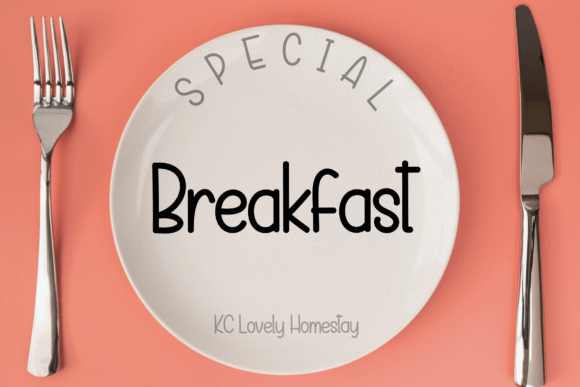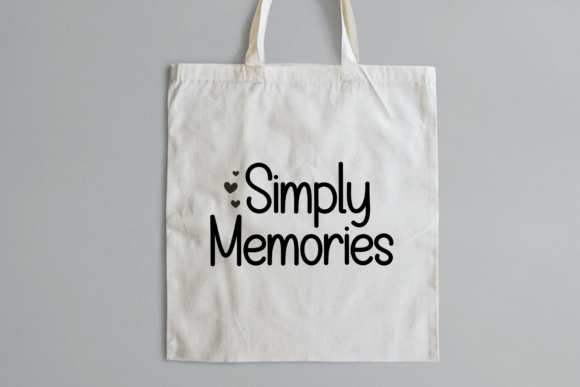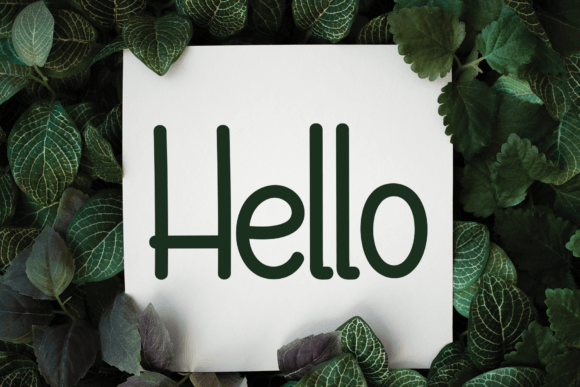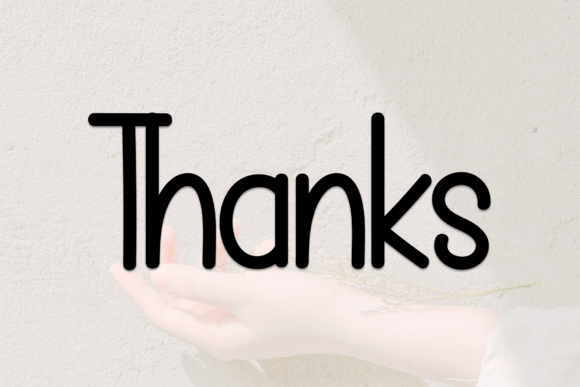
Ecanting Font: The Perfect Handwritten Style for Your Design Needs
Are you looking for a font that exudes a sense of relaxed sophistication and casual elegance? Look no further than Ecanting Font, a beautiful handwritten font that mimics the look of marker-drawn letters. With its sporty and laid-back feel, Ecanting Font is ideal for a wide range of design applications, from branding and logos to wedding supplies, greeting cards, and marketing promotions.
What is Ecanting Font?
Ecanting Font is a carefully crafted handwritten font that boasts a unique, marker-like quality. Its relaxed and sporty feel makes it perfect for designers who want to add a touch of casual elegance to their work. Whether you’re creating a logo, designing a wedding invitation, or crafting a marketing campaign, Ecanting Font is sure to impress.
Characteristics of Ecanting Font
Ecanting Font has several key characteristics that make it an excellent choice for designers and crafters. Some of its notable features include:
- Handwritten style: Ecanting Font has a beautiful, handwritten quality that gives it a personal and approachable feel.
- Marker-like texture: The font’s texture resembles that of a marker, adding a touch of whimsy and playfulness to your designs.
- Relaxed and sporty feel: Ecanting Font has a laid-back, casual vibe that’s perfect for designs that need to feel friendly and approachable.
- Luxurious and elegant: Despite its casual feel, Ecanting Font still manages to convey a sense of luxury and sophistication, making it perfect for high-end designs.
Use Cases for Ecanting Font
Ecanting Font is an incredibly versatile font that can be used in a wide range of design applications. Here are some of the most popular use cases for this beautiful font:
- Branding and logos: Ecanting Font is perfect for creating logos and branding materials that need to feel friendly, approachable, and sophisticated.
- Wedding supplies: The font’s elegant, handwritten quality makes it an excellent choice for wedding invitations, programs, and other stationery.
- Greeting cards: Ecanting Font is ideal for creating greeting cards that need to feel personal and heartfelt.
- Fashion and lookbooks: The font’s luxurious, high-end feel makes it perfect for fashion designs, lookbooks, and marketing promotions.
- Marketing promotions: Ecanting Font can be used to create eye-catching marketing materials, such as flyers, brochures, and social media graphics.
Tips for Using Ecanting Font
To get the most out of Ecanting Font, here are a few tips to keep in mind:
- Pair it with contrasting fonts: Ecanting Font looks best when paired with contrasting fonts that provide a clear visual hierarchy.
- Experiment with colors: The font’s marker-like texture looks great in a variety of colors, so don’t be afraid to experiment and find the perfect hue for your design.
- Use it in combination with images: Ecanting Font looks great when used in combination with images, so consider pairing it with photography or illustrations to add visual interest to your design.
Ecanting Font is a beautiful, handwritten font that’s perfect for designers and crafters who want to add a touch of relaxed sophistication to their work. With its marker-like texture, luxurious feel, and versatile use cases, Ecanting Font is an excellent choice for a wide range of design applications. Whether you’re creating a logo, designing a wedding invitation, or crafting a marketing campaign, Ecanting Font is sure to impress.